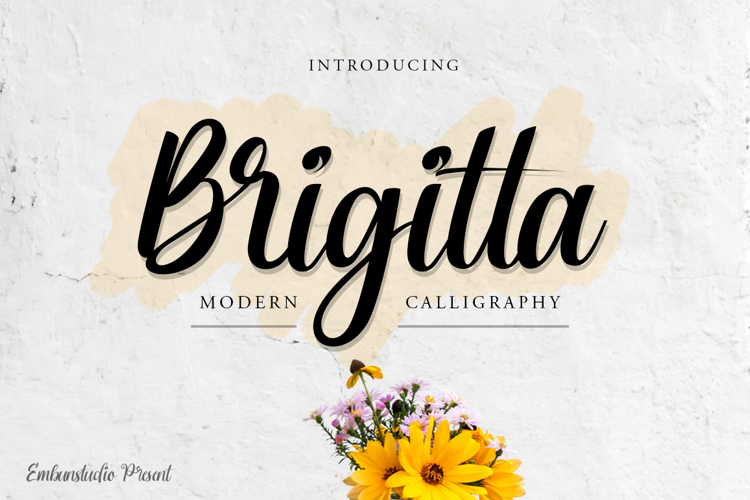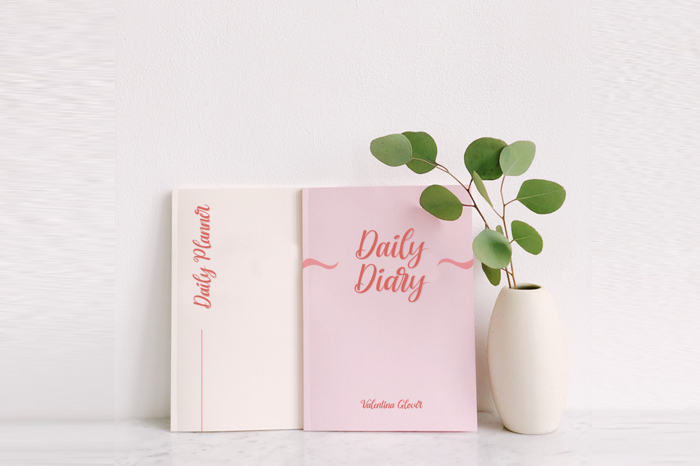
Brigitta Script Font
Introducing
New "Brigitta" Script font
Suitable for pillows text, mug, frame, logotype, and more home decoration
make your home for good looking with neat calligraphy